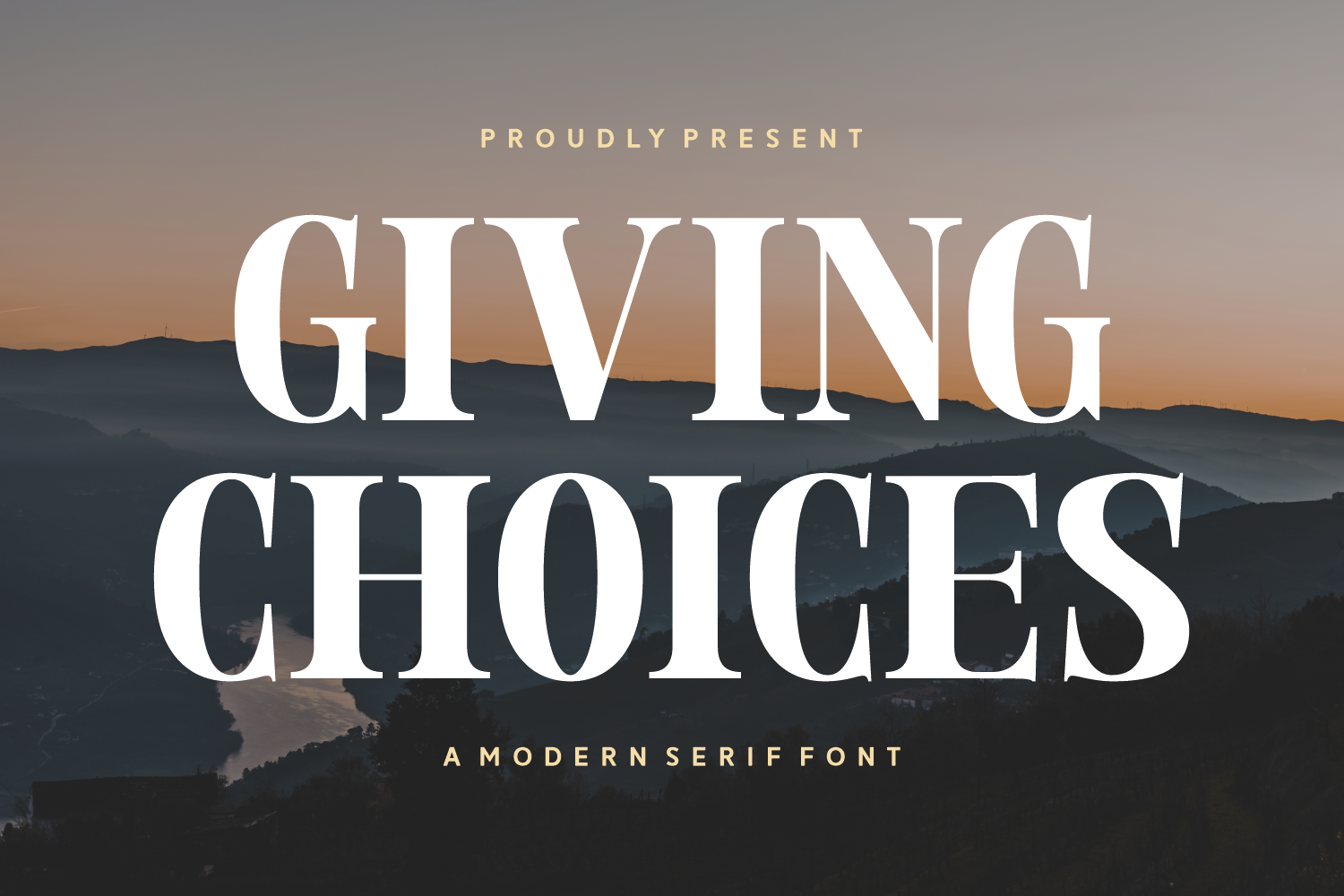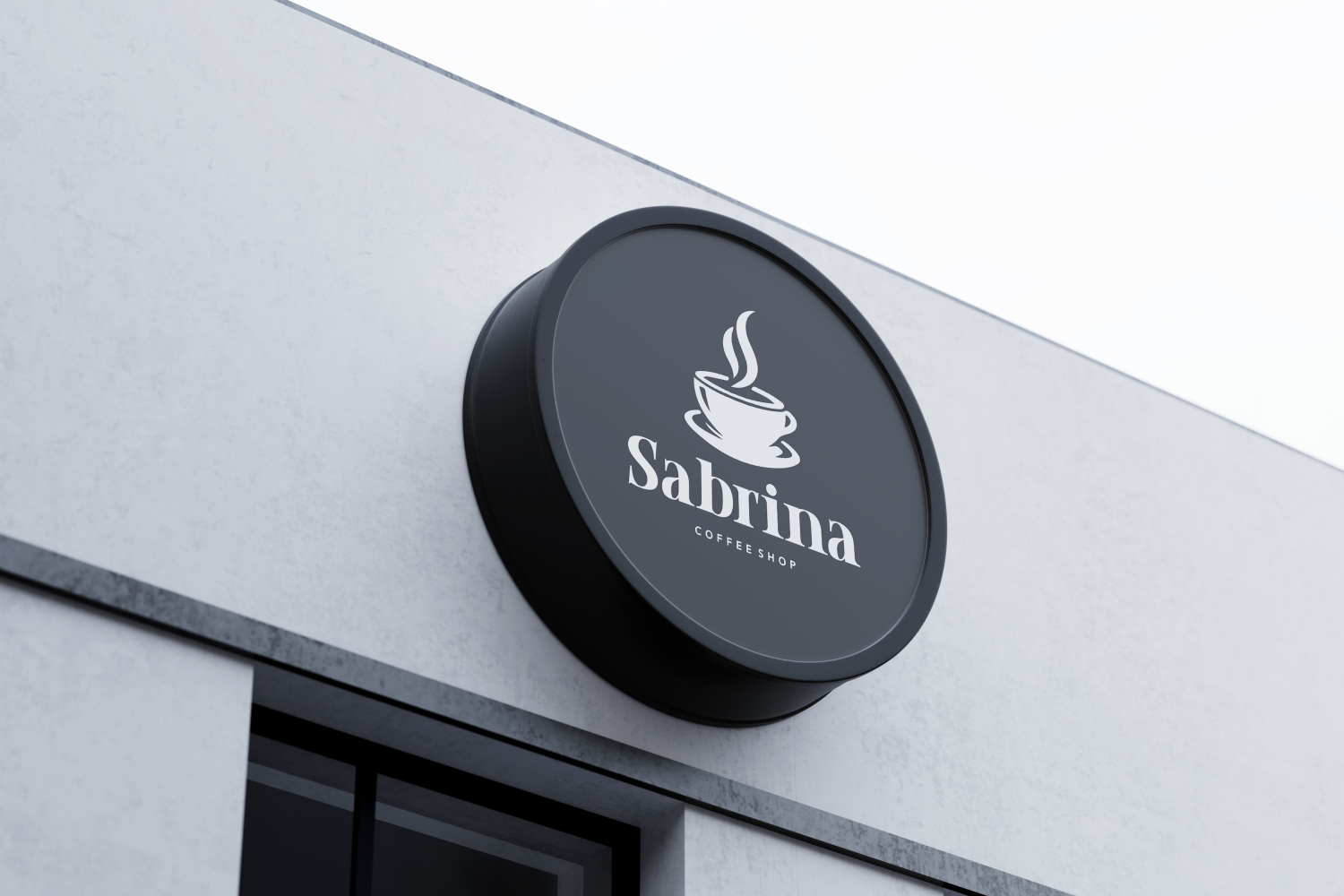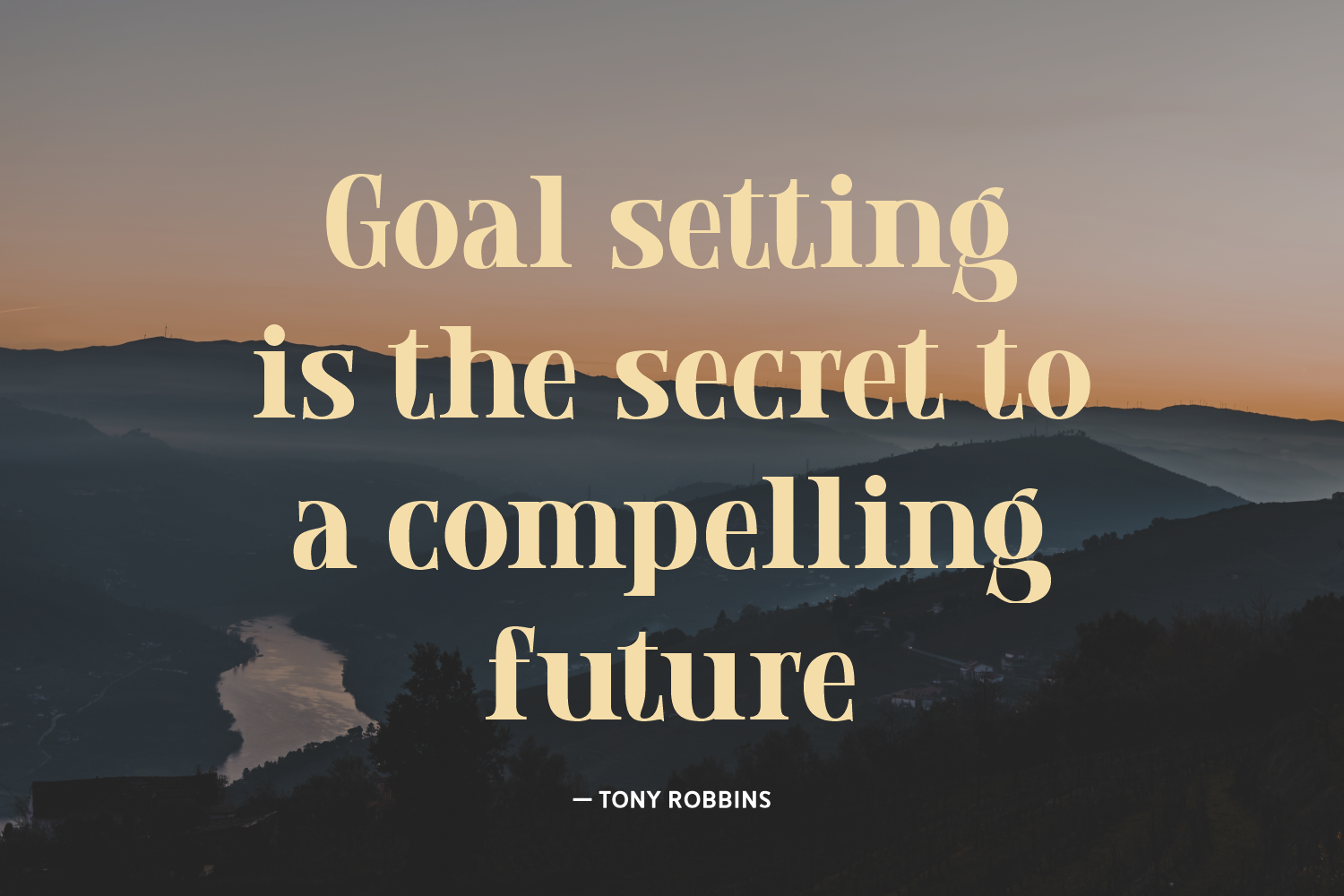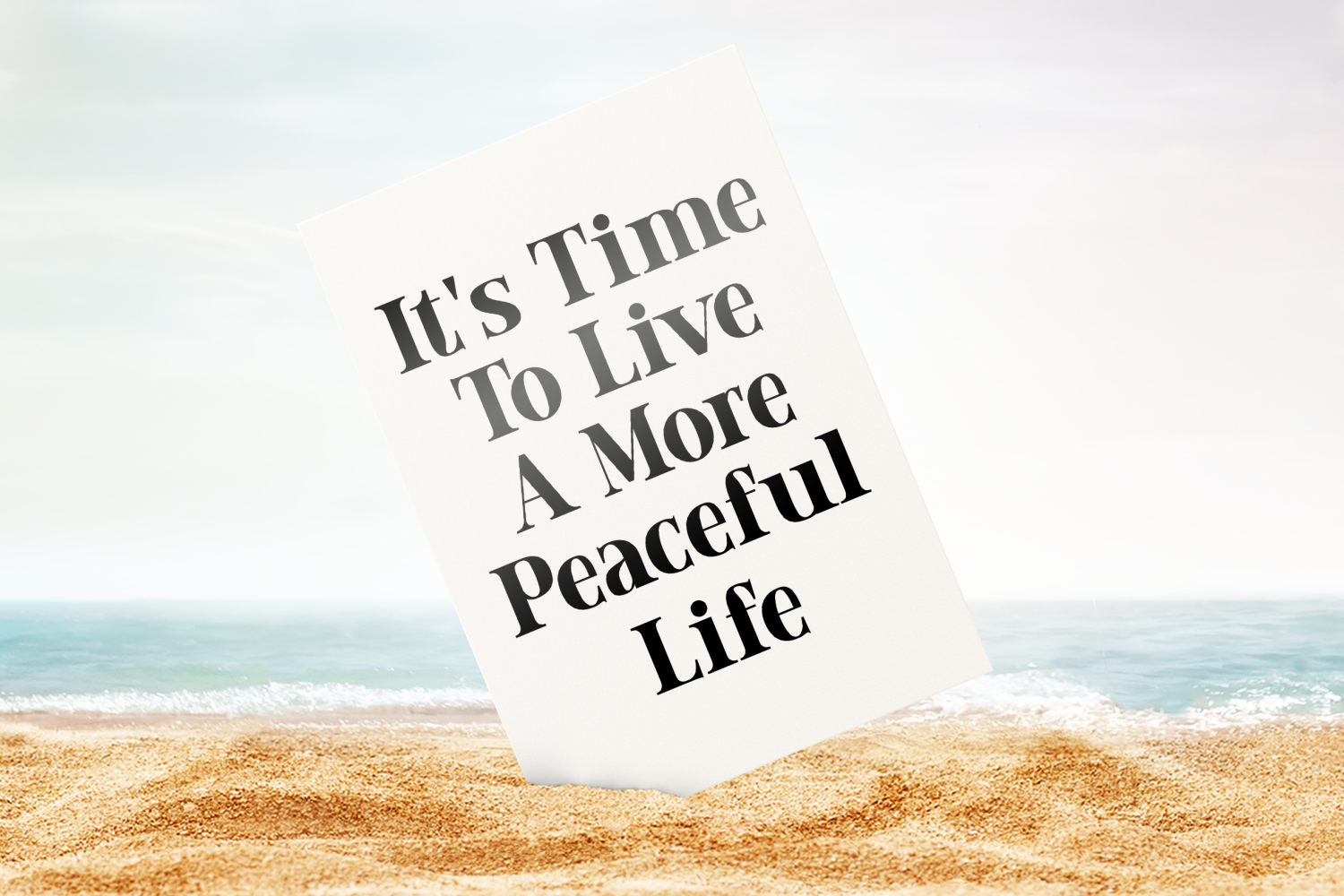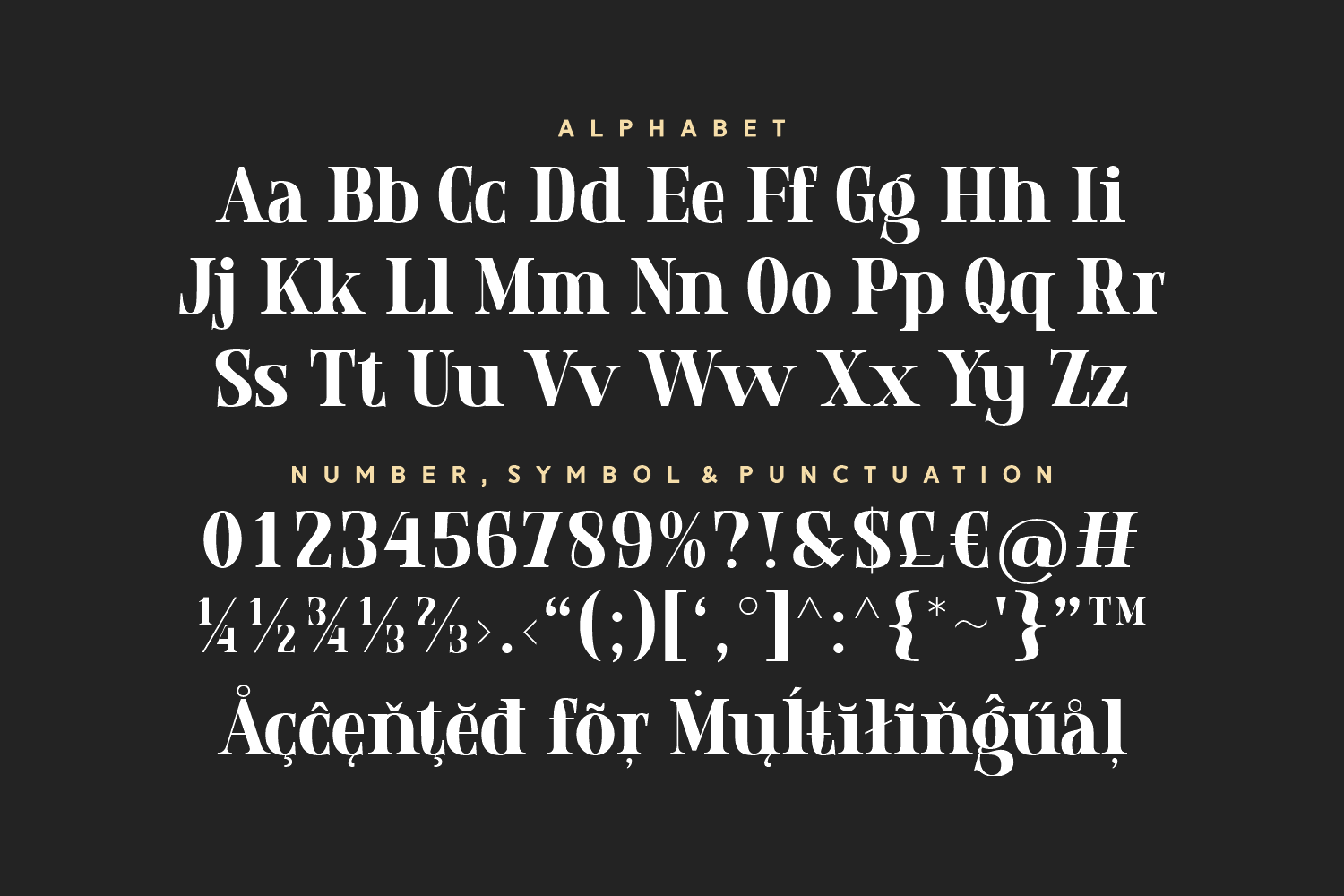
Giving Choices
Giving Choices is a modern serif font with bold presence and smooth character. Ideal for empowering messaging, editorial spreads, and social causes, it combines clarity with charisma in every letterform.